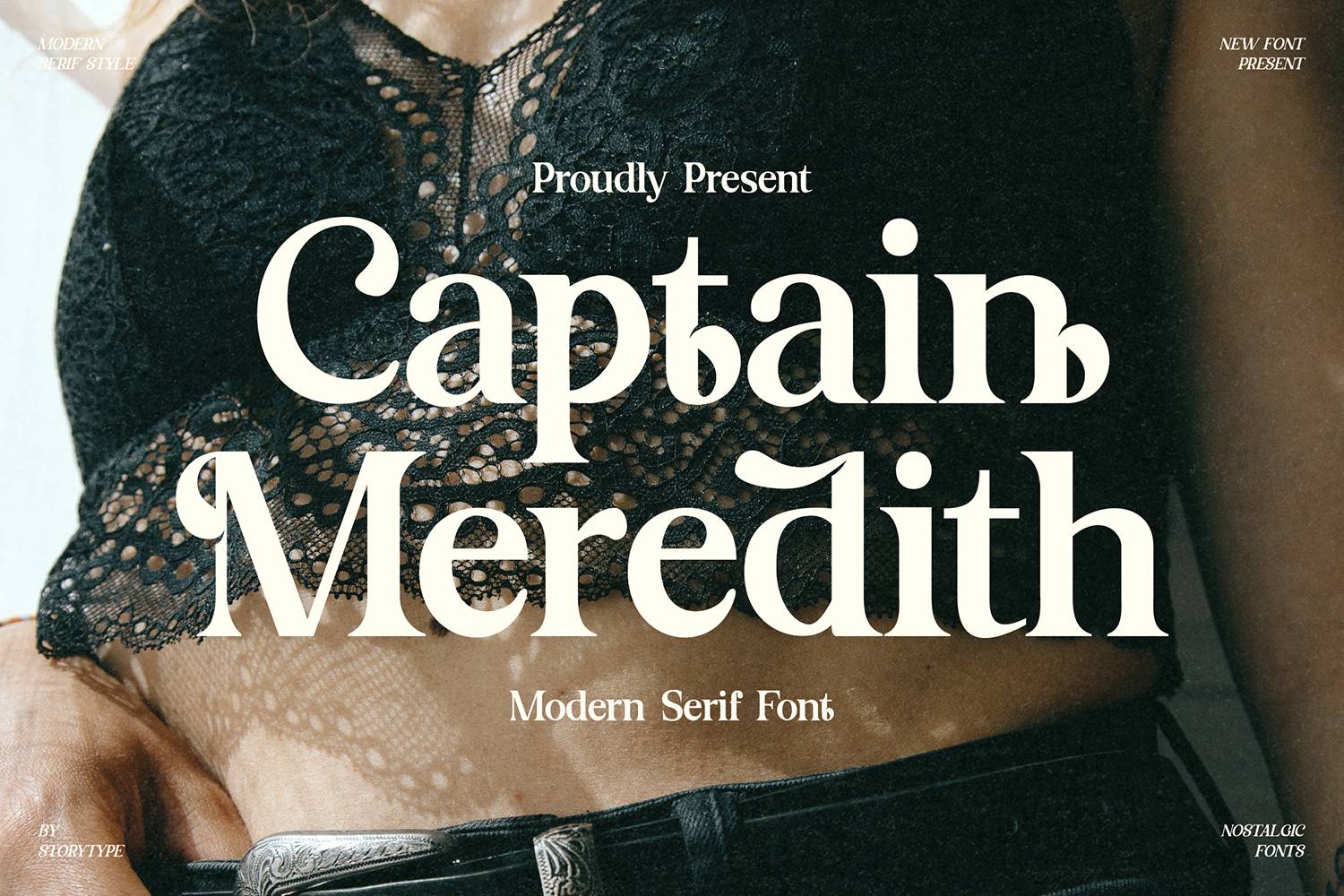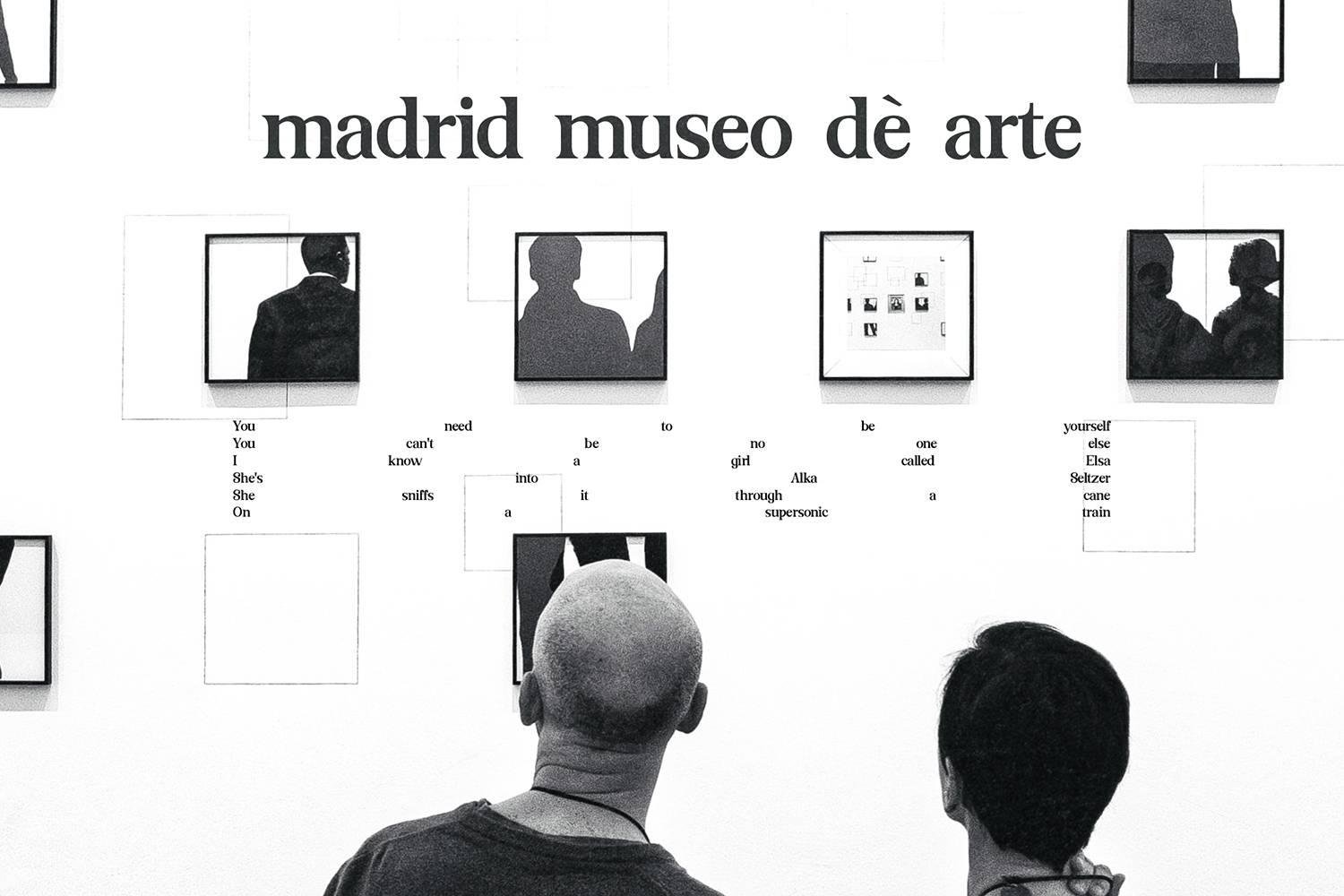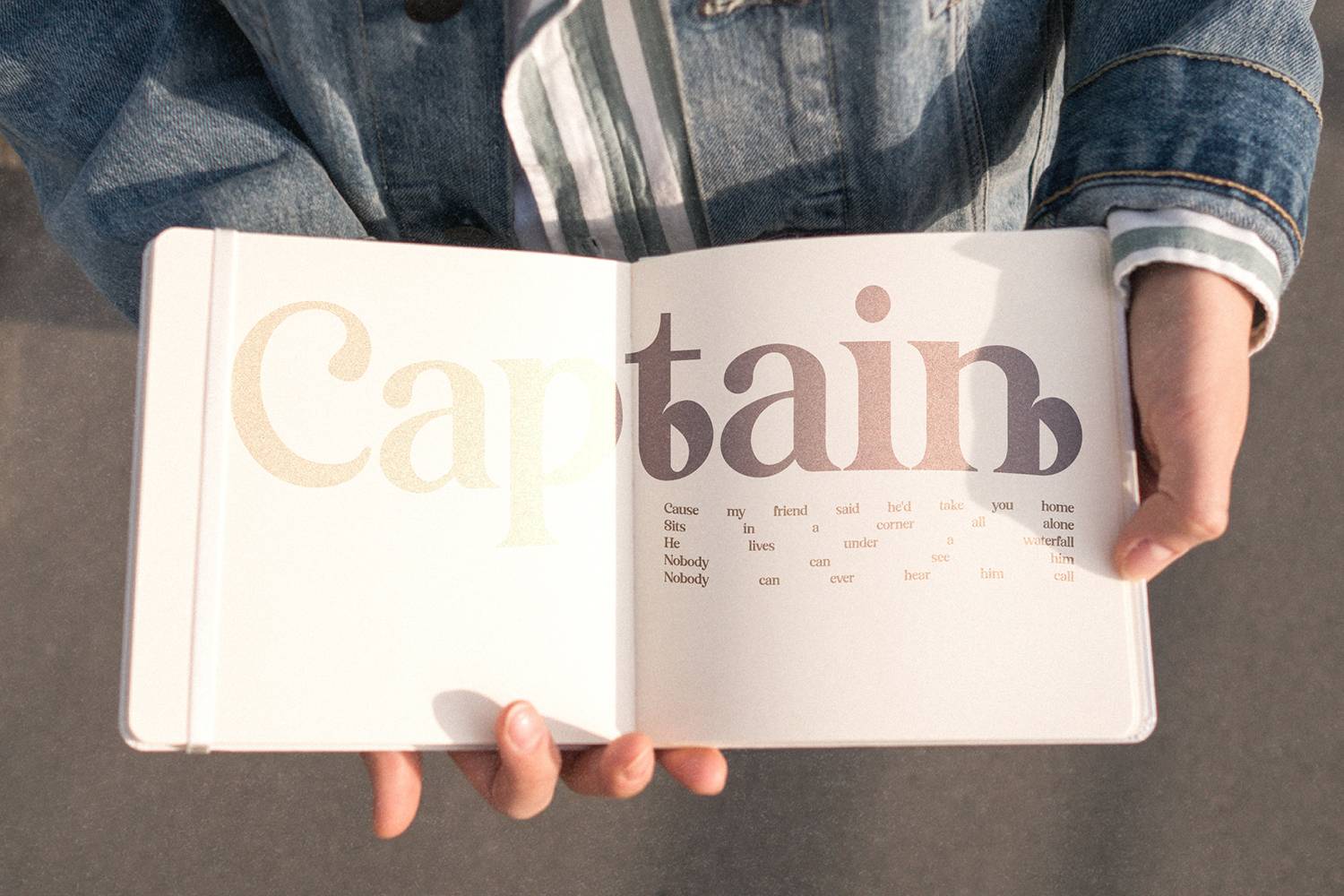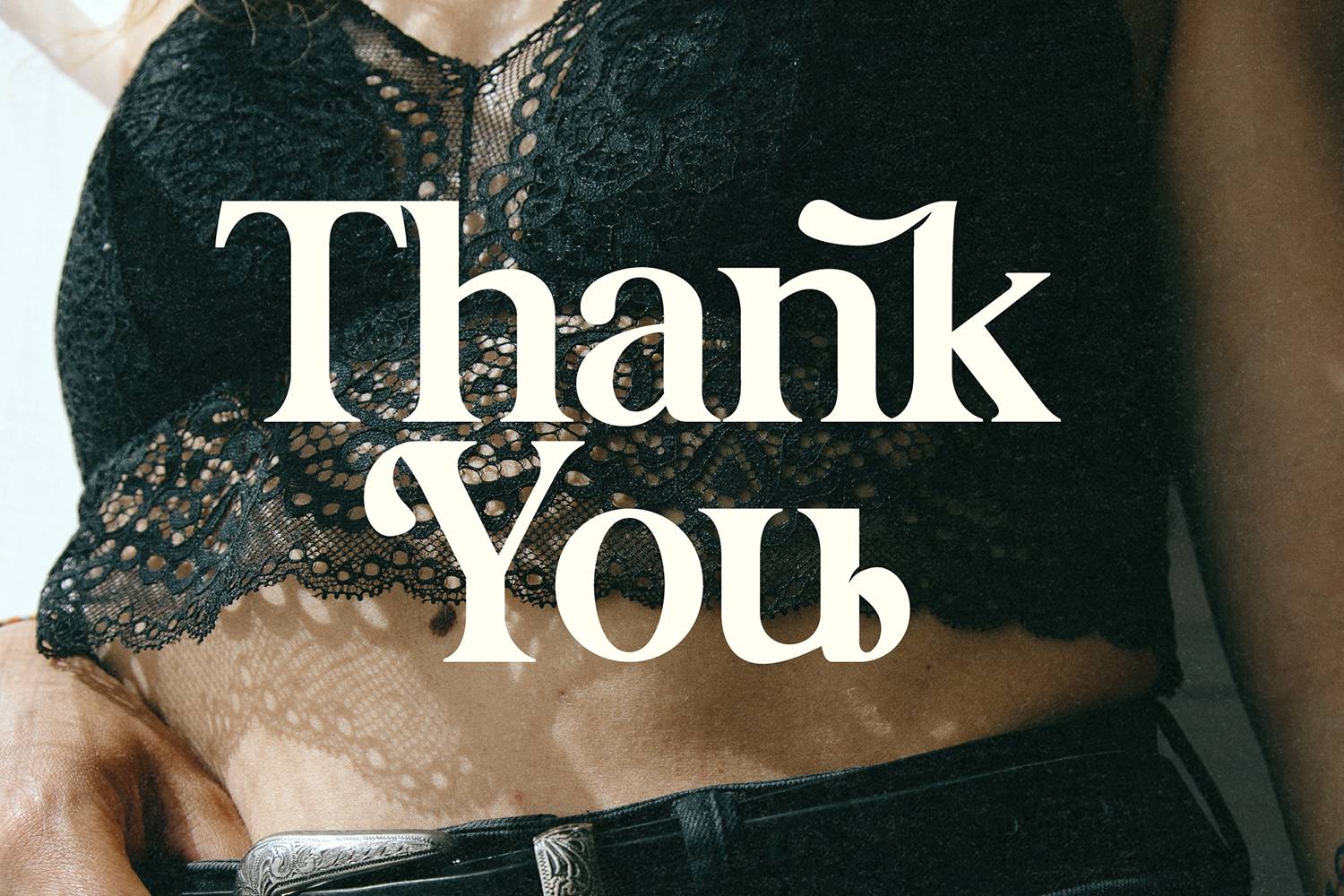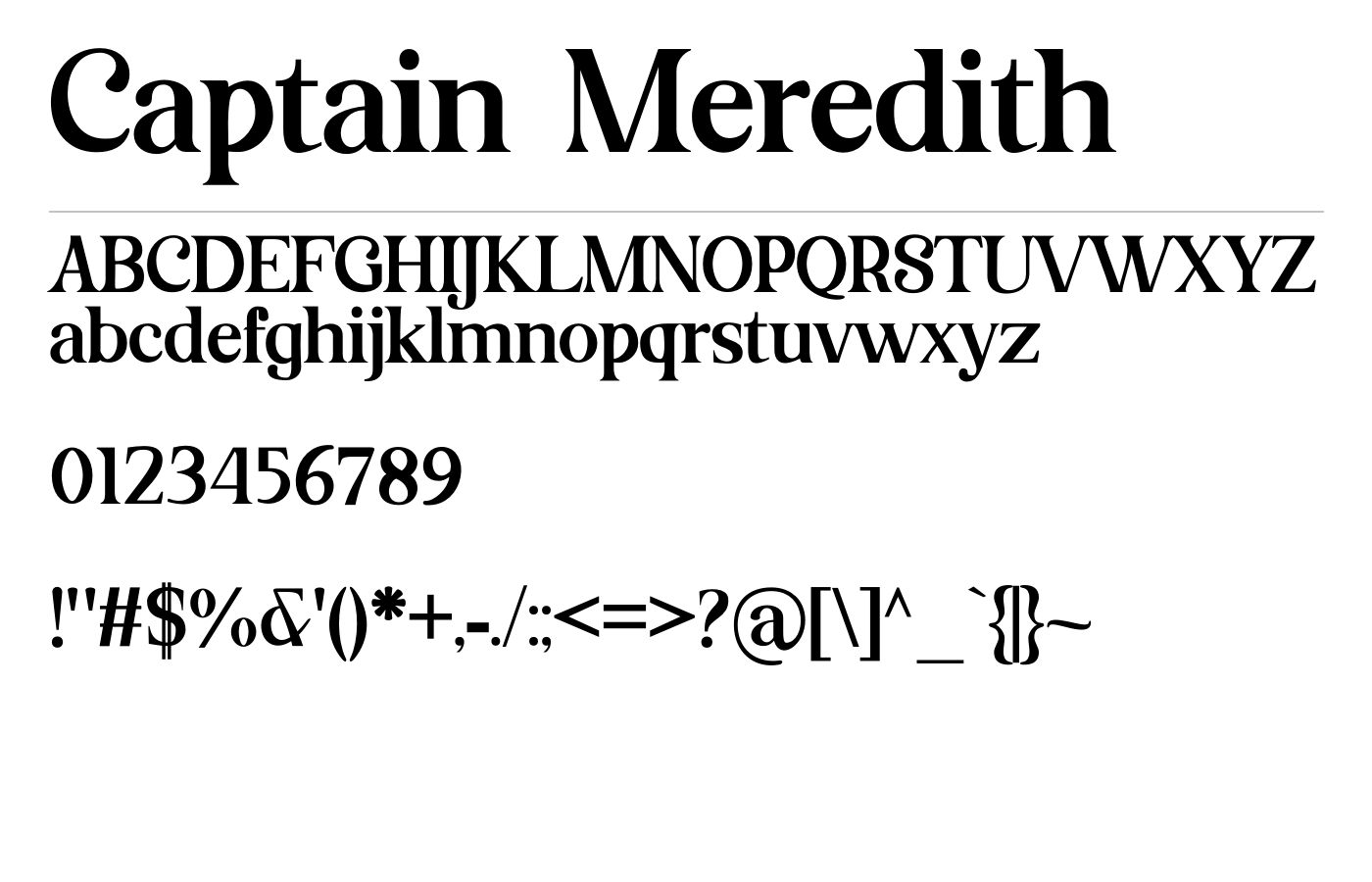
Captain Meredith is a refined serif typeface that combines classic elegance with subtle modern touches. Its medium weight and moderate contrast between thick and thin strokes give it a distinctive, authoritative presence, while the slightly condensed letterforms and unique terminal shapes add personality and charm. Ideal for editorial design, luxury branding, and sophisticated headlines, this font delivers a timeless yet approachable feel that enhances readability with a touch of character.
Captain Meredith Font